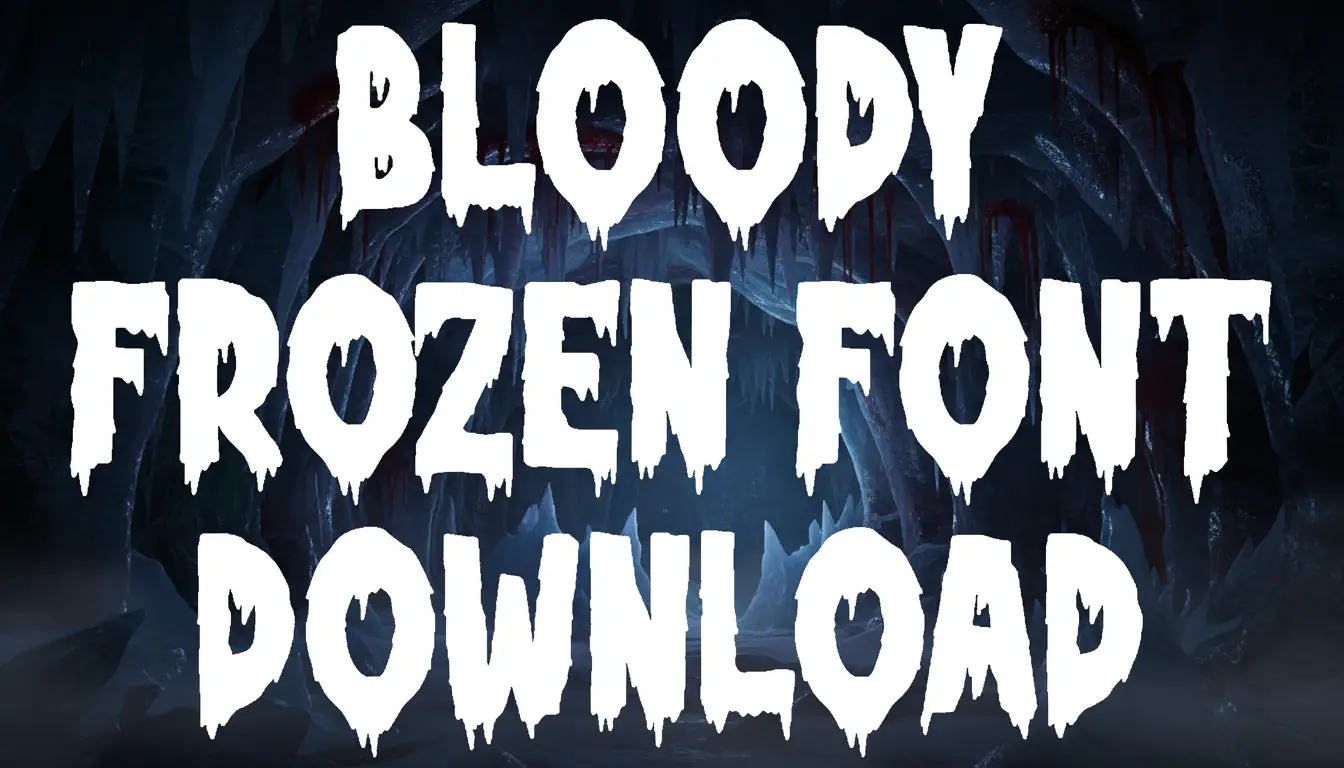
Bloody Frozen Font
Bloody Frozen
Bloody Frozen is a holiday font designed by Kamukita studio. It has a festive, celebratory look made for seasonal designs. It's a free download, and you can try it with your own text in the preview above first.
Bloody Frozen Font Details
- Designer: Kamukita studio
- Category: Holiday font
- Glyphs: 206
What You Can Type With Bloody Frozen
Bloody Frozen covers the full alphabet in upper and lowercase, plus all ten numbers, so you can set names, dates and prices without switching fonts. Common punctuation such as &, !, ? and @ is included as well. It also has the accented letters you need for Spanish, French, German, Portuguese and Italian.
Where Bloody Frozen Works Best
Designers usually reach for fonts like Bloody Frozen when they're making seasonal cards, sale banners and party invites. Keep the wording short, like a greeting or a sale headline, and let the font set the mood.
Does Bloody Frozen support accented letters?
Yes. Bloody Frozen includes the accented letters needed for Spanish, French, German, Portuguese and Italian, so it works for more than just English.
What fonts pair well with Bloody Frozen?
A simple serif or sans serif works well for the smaller details.